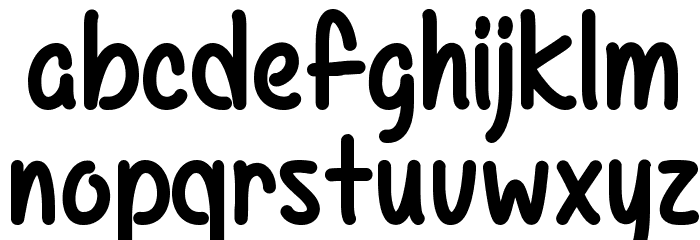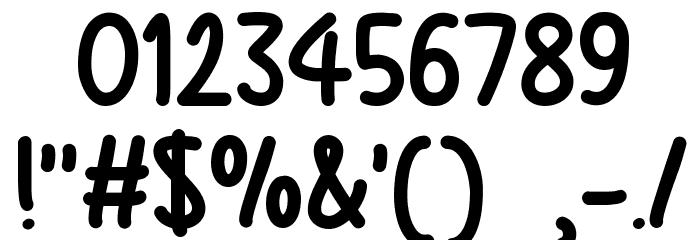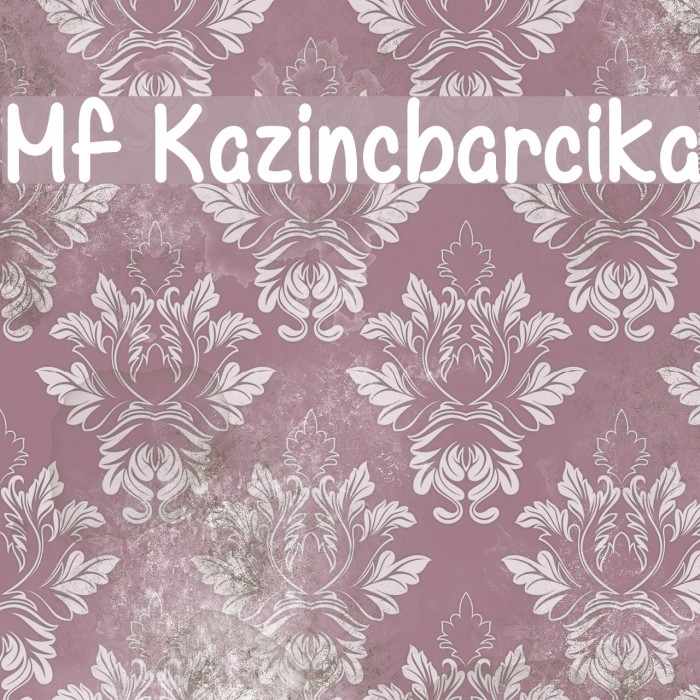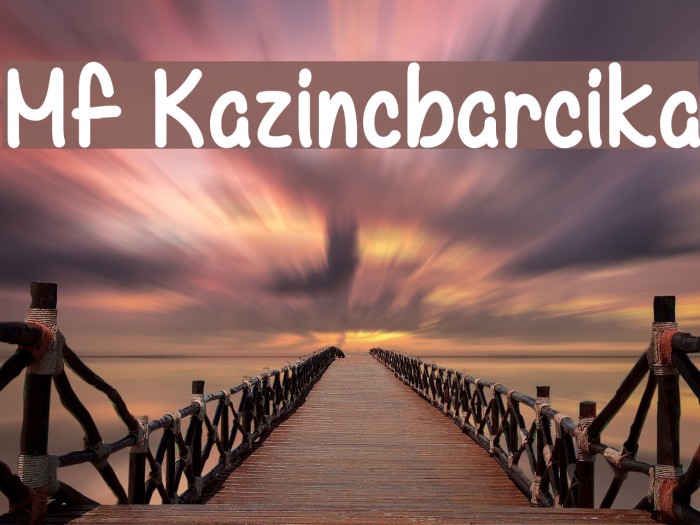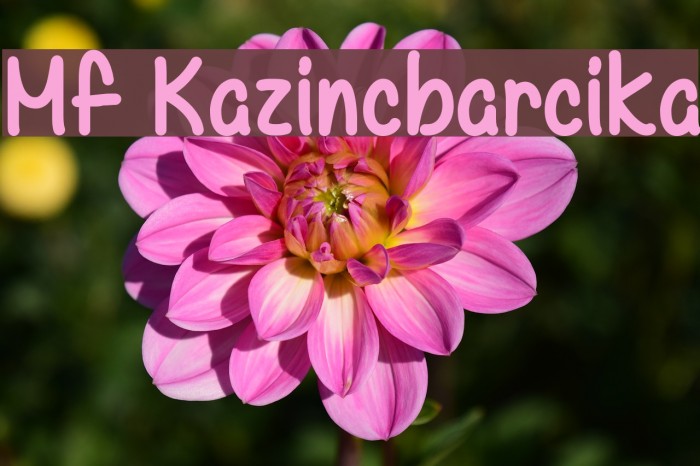
Mf Kazincbarcika Font
This playful and bold font features rounded, thick strokes that give it a friendly and approachable appearance. The characters are slightly condensed, with a consistent stroke width that maintains readability across both uppercase and lowercase letters. The numbers and special characters follow the same style, ensuring uniformity throughout. Its handwritten style adds a personal touch, making it suitable for projects that require a casual and informal tone. The font's design is clean and legible, making it versatile for various applications.
A playful, bold, and rounded handwritten font with consistent stroke width.
- Proposed Projects: Ideal for children's books, playful branding, greeting cards, and casual invitations.
- Category: Handwritten
- Overall Style: Playful
- Use Case: Headlines, Logos, Informal Text